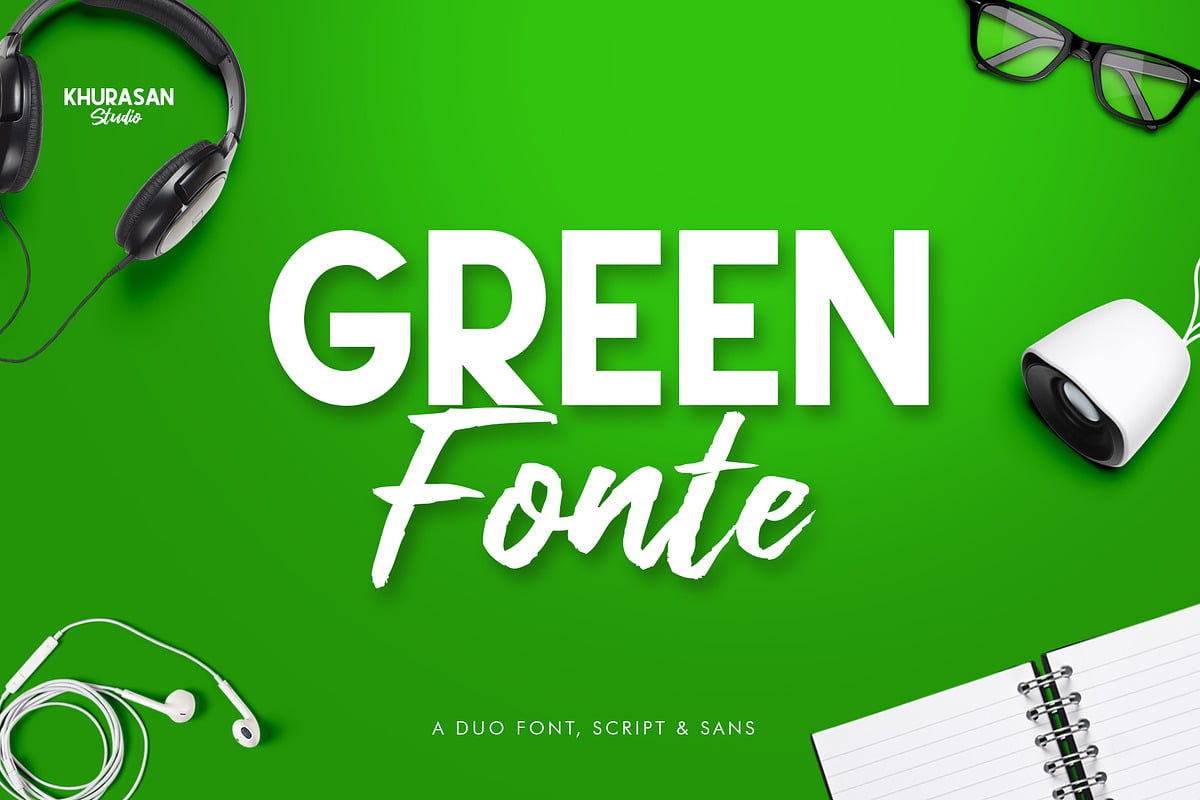
Green Fonte Font Duo
Create stunning designs with Green Fonte Font Duo - a perfect pairing of modern script and clean sans serif typography. The Green Fonte Font combines a fun modern script with a fresh, contemporary sans serif style. Mix and match both typefaces to achieve amazing design results that stand out. Perfect for a wide range of creative projects: Logo design and branding Greeting cards and invitations Posters and promotional materials Any custom design project Files Included: Green Fonte Script (ttf, ot...